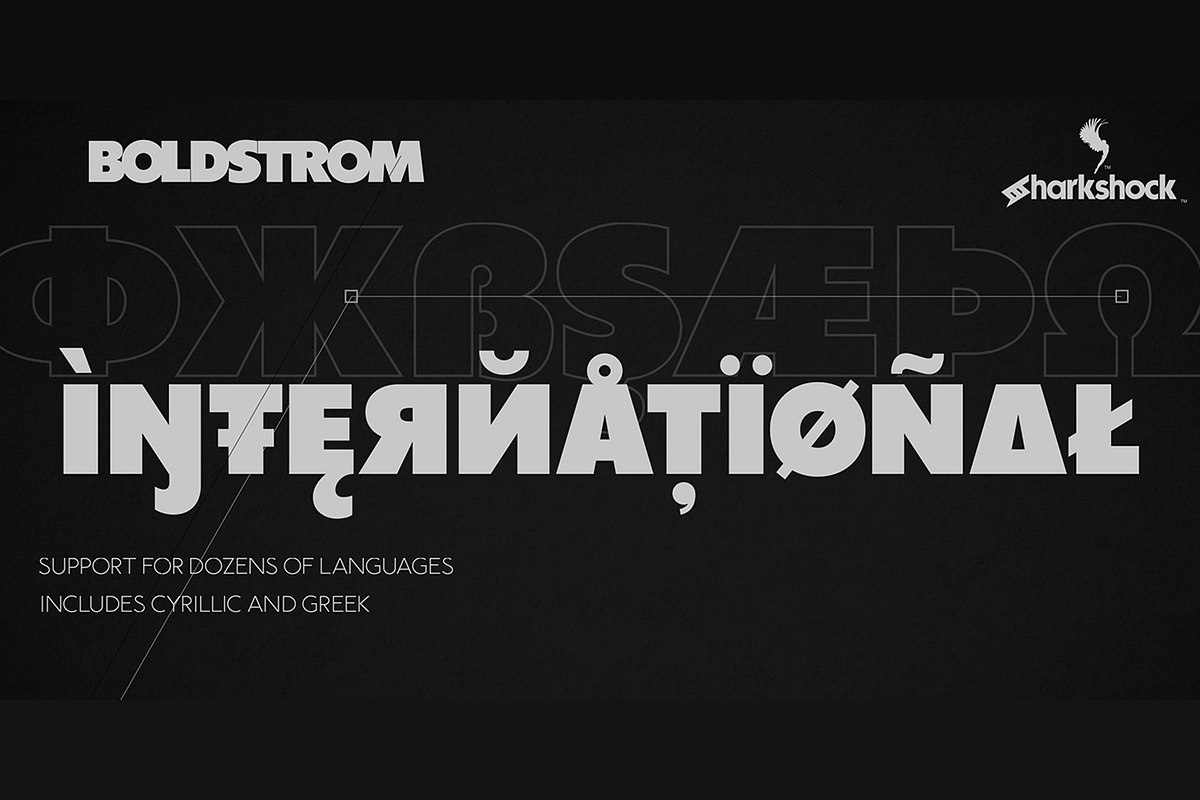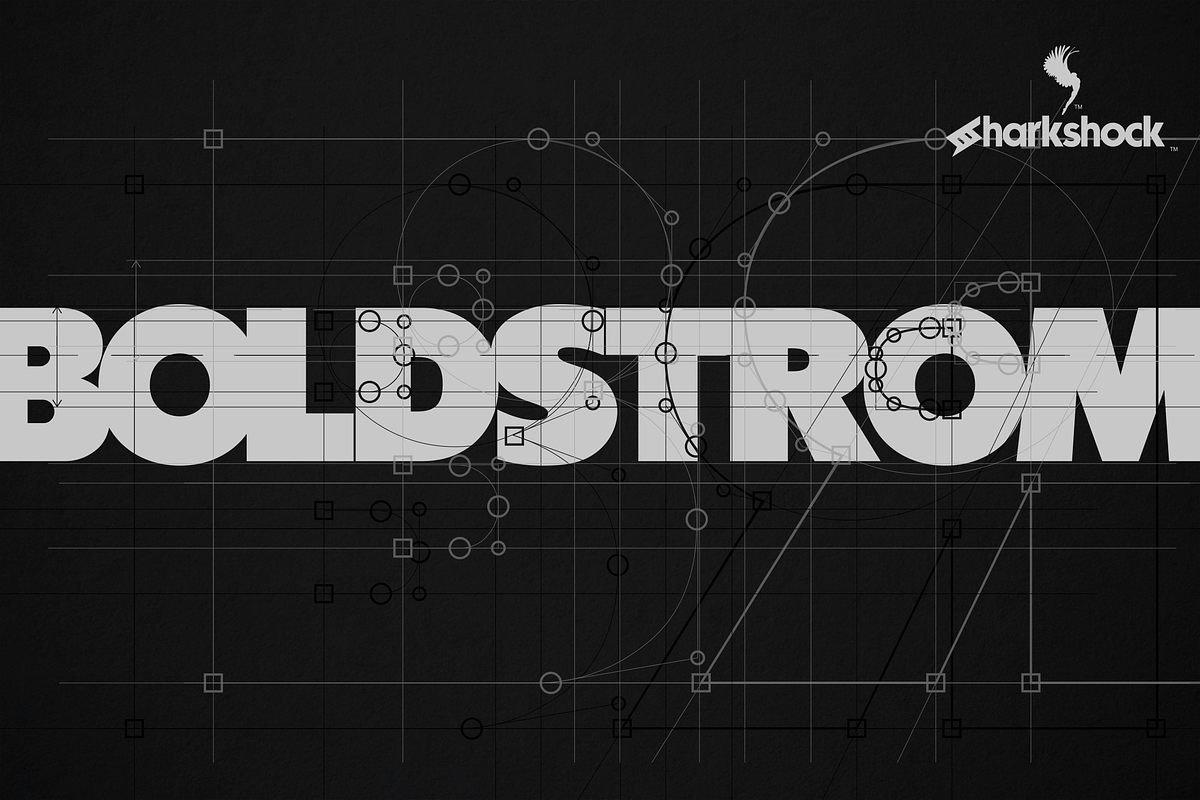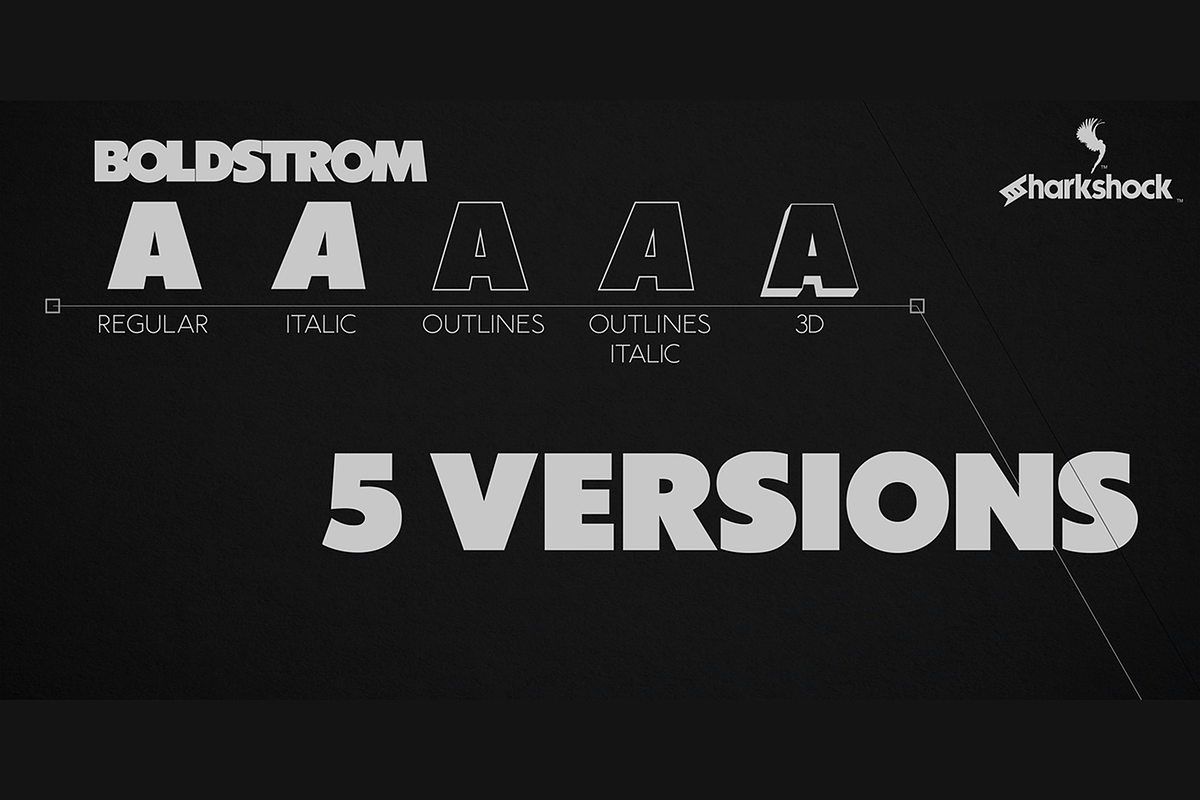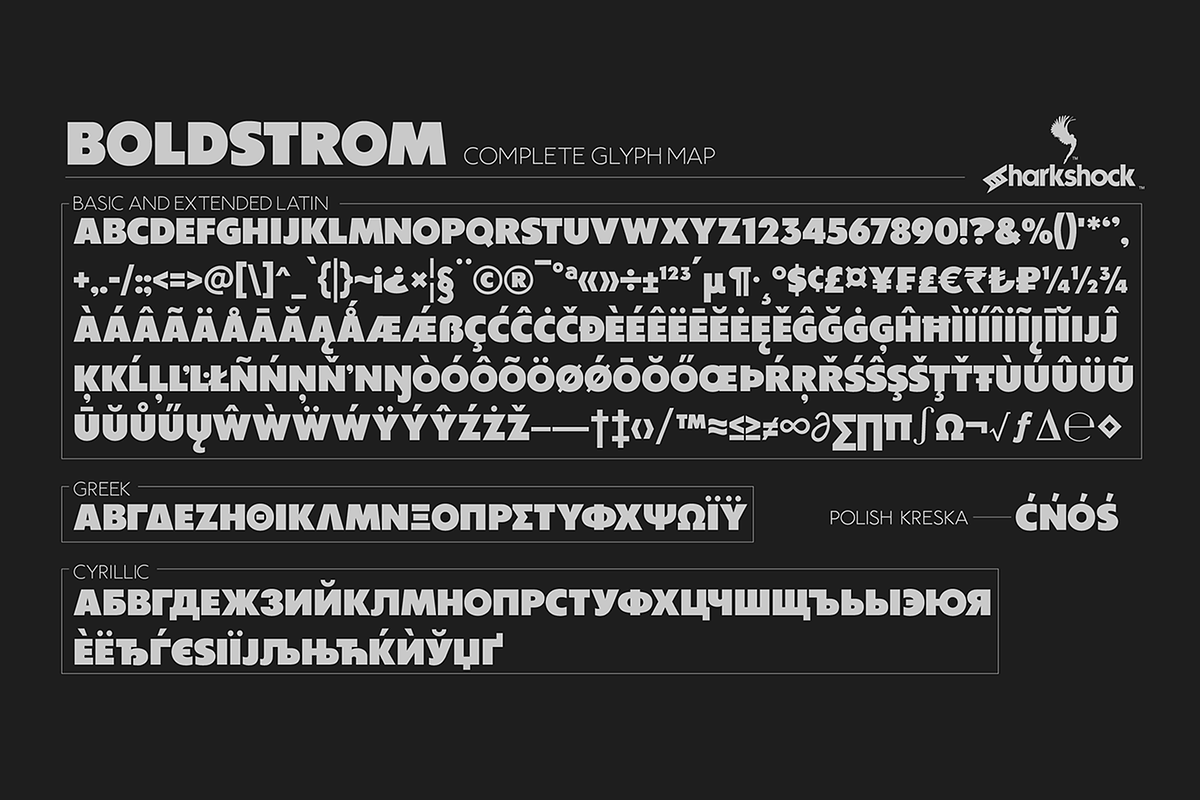
Boldstrom
Boldstrom is a heavy-handed, all caps, display font available in 5 versions. Emphasis was put into strong line weight, minimal contrast, and tight curves. This family is defined by very broad stems with comparatively thinner cross strokes. Spacing was condensed to ensure the characters fit snug against one another. This was done in part to minimize negative space while also creating tension. The result is a powerful looking sans serif designed to command attention and make a statement. Boldstrom will be best used in large format print, titling, books, movie posters, or company logos.